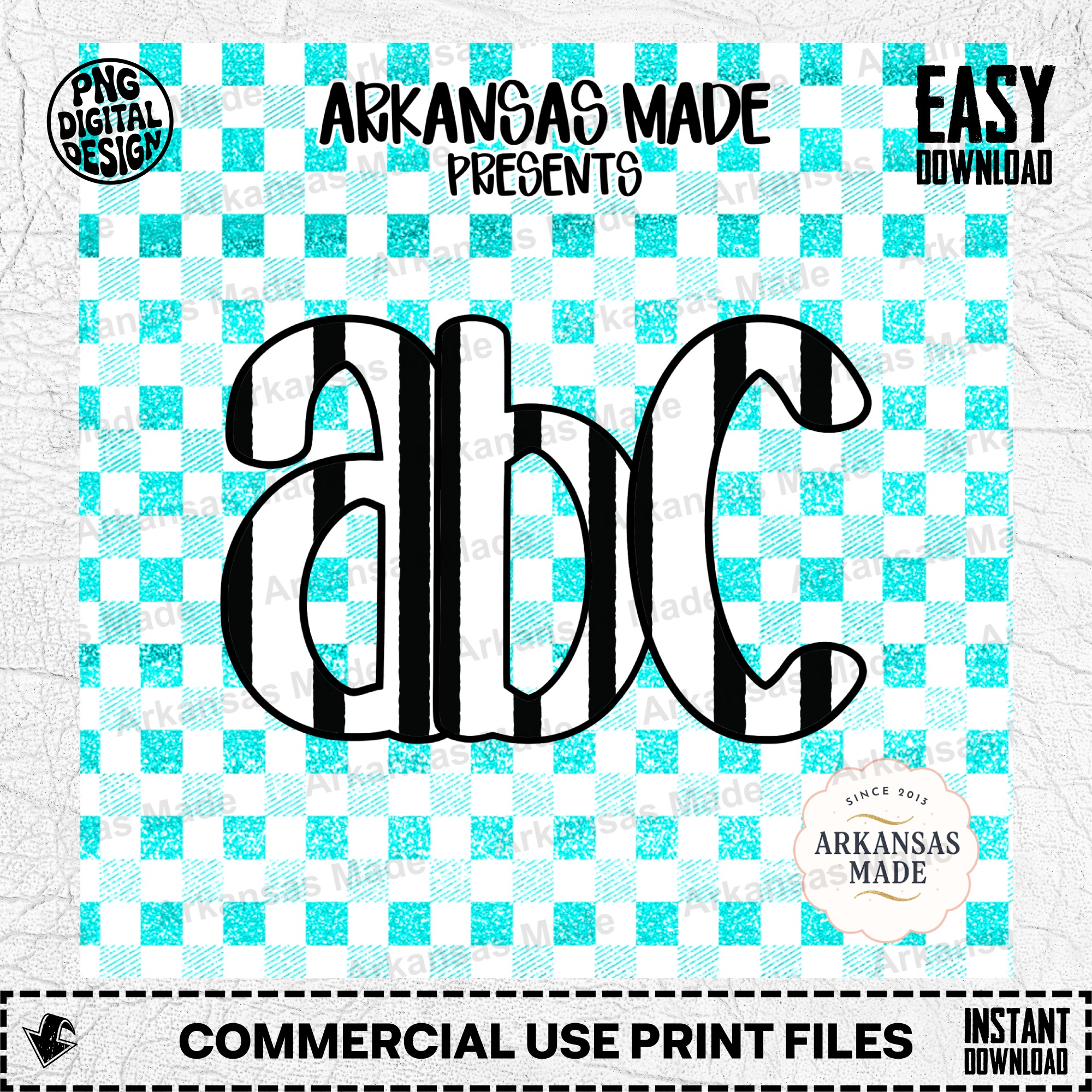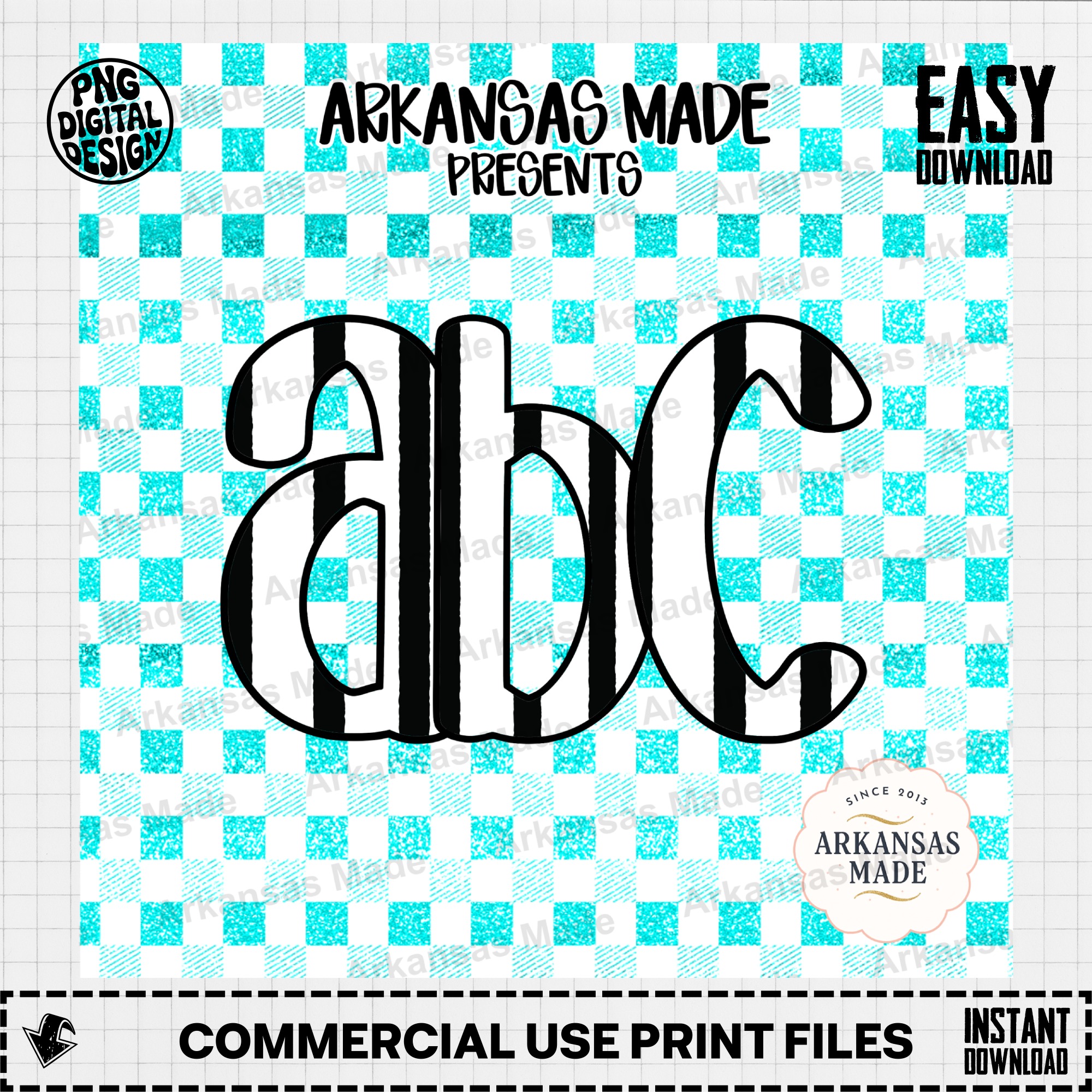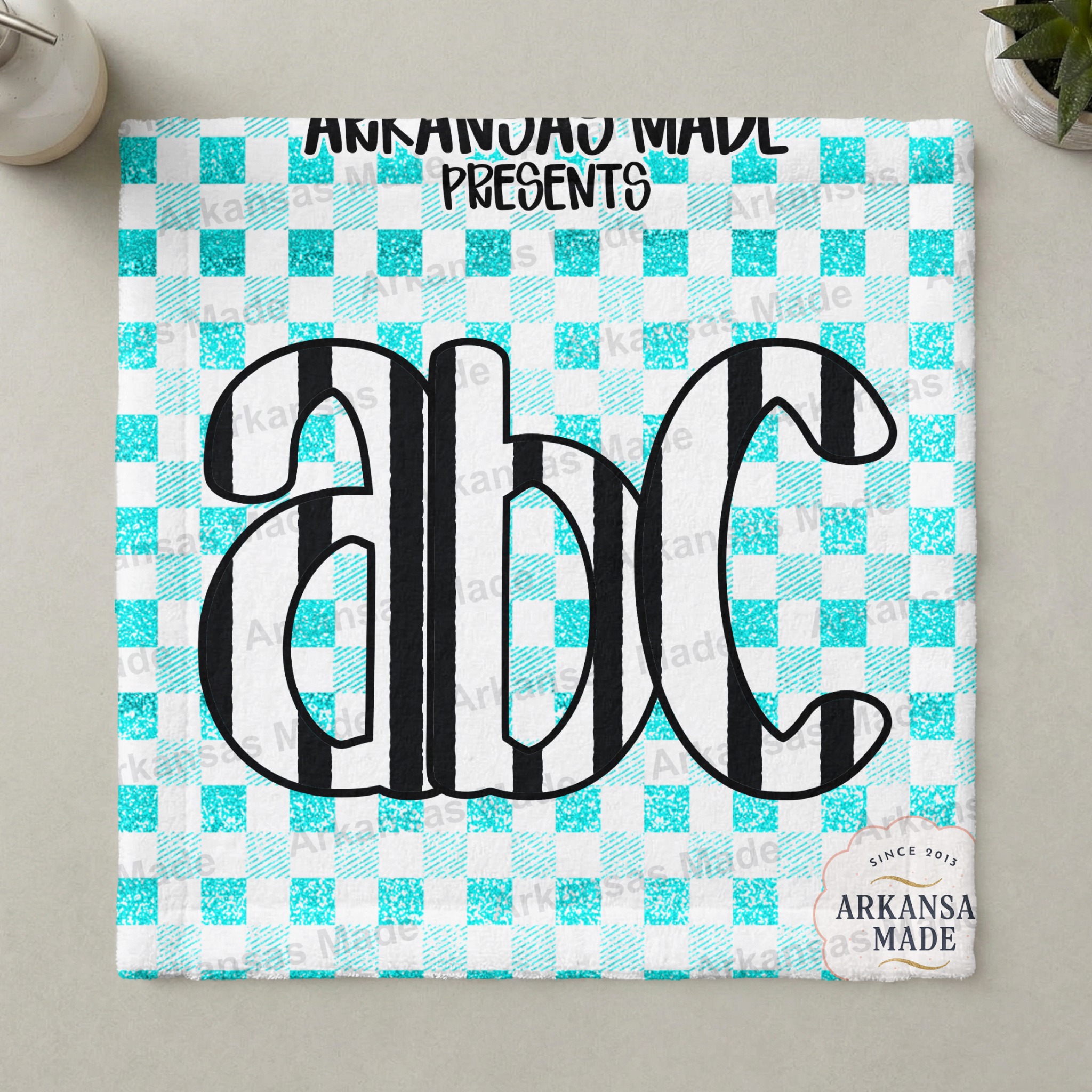
Teal Glitter Gingham Alphabet PNG Digital Download Set | Aqua Buffalo Plaid Letter Clip Art Striped Font DIY Sublimation
Get creative with our Teal Glitter Gingham Alphabet PNG Digital Download Set! Perfect for unique crafts, sublimation, and personalized projects. This vibrant aqua buffalo plaid and black striped letter clip art brings a playful yet preppy southern charm to any design. Ideal for crafters, teachers, and DIY enthusiasts looking to create custom t-shirts, party decor, or educational materials. A fantastic resource for baby shower gifts, birthday themes, or adding a unique touch to your small business products.